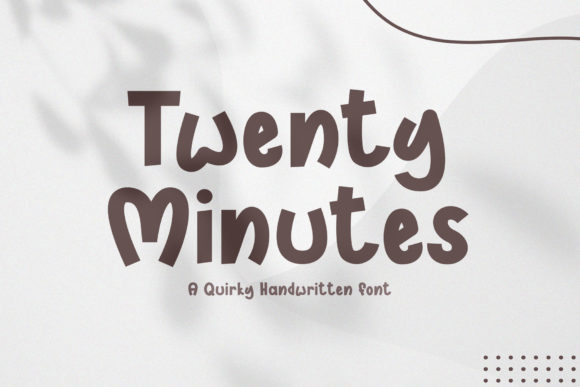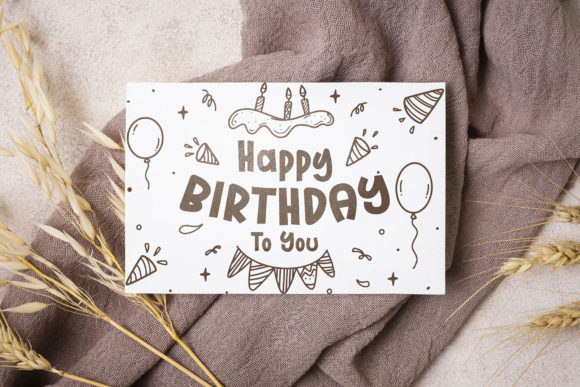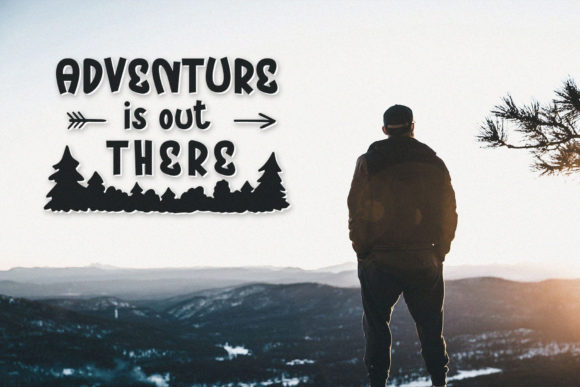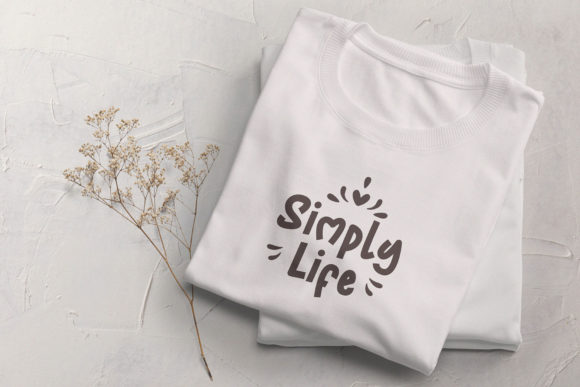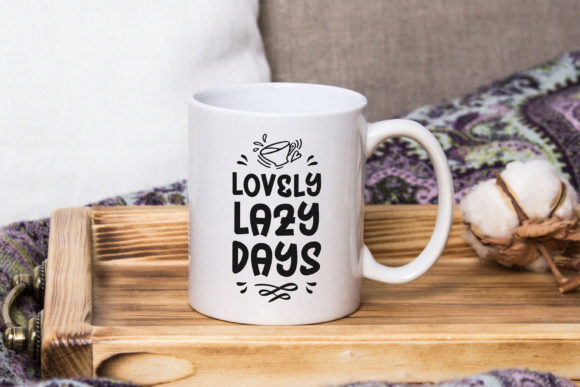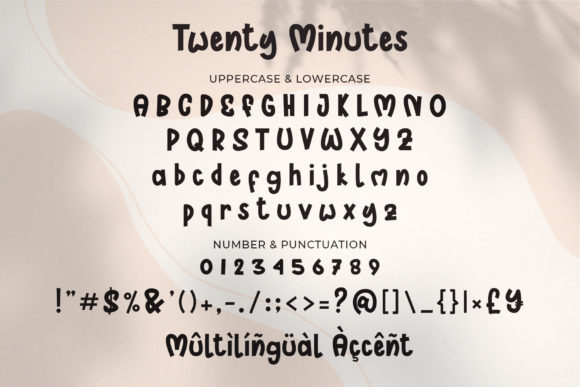
Twenty Minutes Font
About Twenty Minutes Font
Twenty Minutes is a cute and friendly handwritten font. Clean and soft, this font is the perfect fit for all of your crafty DIY projects, logos, branding, social media post and much more!